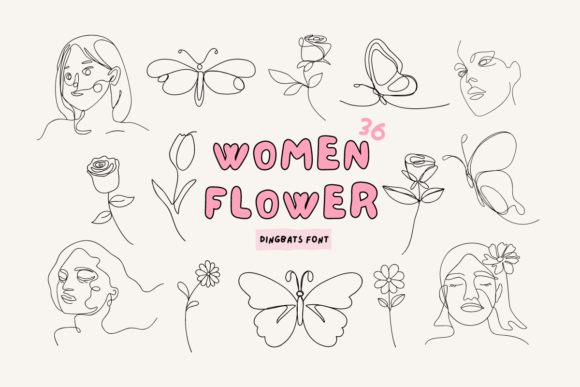
Immerse yourself in a world of whimsical charm and delicate beauty with the Women and Flower Font. This enchanting font family, meticulously crafted by Babymimiart, is a symphony of intricate illustrations and elegant letterforms that will captivate your senses and transform your designs into breathtaking works of art.
Step into a realm where flowers dance with butterflies, and women adorn every letter, creating a captivating tapestry of visual delight. The Women and Flower Font is an exquisite treasure, perfect for designing feminine logos that bloom with elegance, branding materials that exude sophistication, invitations that whisper romance, and greeting cards that radiate warmth and joy.
With its hand-drawn illustrations, this font family brings a touch of artisanal charm to your creative projects, evoking a sense of nostalgia and timeless beauty. Whether you're a seasoned designer or just starting your artistic journey, the Women and Flower Font will elevate your designs to new heights of creativity.
So, embrace the magic of the Women and Flower Font and let your imagination soar. Allow its delicate strokes and enchanting motifs to weave their spell on your designs, transforming them into masterpieces that resonate with emotion and grace. Discover the boundless possibilities that await you with this exquisite font family, and let your creativity flourish like never before.